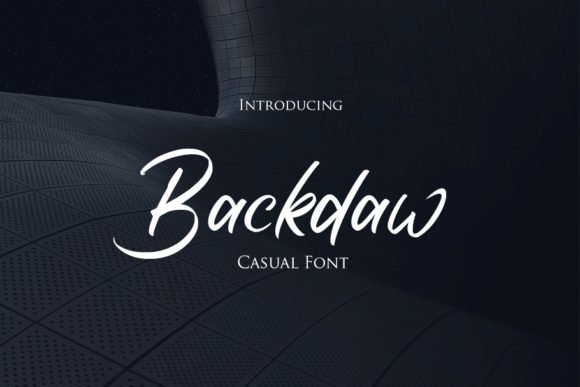
Unleash Your Creativity with the Timeless Elegance of Backdaw Font
There’s nothing quite like the rush of excitement when you stumble upon the perfect font for your next design project. You’re browsing through a sea of options, and suddenly, it hits you – the perfect combination of style, elegance, and whimsy that sets your creative juices flowing. This is exactly what happens when you discover the enchanting Backdaw Font, a flowing handwritten font that adds an air of sophistication to any project.
Whether you’re a seasoned designer or just starting out, Backdaw Font is an invaluable addition to your toolkit. Its elegant touch and timeless style make it perfect for a wide range of projects, from branding and advertising to digital products and print materials. With Backdaw Font, you can create spectacular designs that leave a lasting impression on your audience.
- Unique Characteristics: Backdaw Font features a unique blend of modern and vintage elements, with a distinctive flair for adding a touch of elegance to any design.
Backdaw Font Review
Overall, I found the Backdaw font to be a solid, modern choice for digital projects. Here are some of its key strengths: ✨
- Unique Character**: Backdaw stands out with its distinctive, hand-drawn feel, making it a great option for designs that need a bit of personality.
- Legibility**: Despite its unconventional style, the font is surprisingly easy to read, even at smaller sizes.
However, I did encounter some limitations: ⚠️
- Lack of Variations**: Backdaw is available in only a few weights, which may limit its versatility in complex designs.
- Inconsistencies**: Some users have reported minor inconsistencies in the font’s rendering across different platforms.
Overall, I’d say the Backdaw font is a good choice for designers who want a distinctive, modern look without breaking the bank. While it may not be perfect, its strengths outweigh its limitations, making it a solid addition to any designer’s toolkit.
Getting the Most Out of Backdaw Font
For the best results, use the Backdaw Font in combination with bold or italic styles to create visual interest.
The Backdaw Font is ideal for use in:
- Logo designs and branding materials.
- Print materials such as business cards and brochures.
- Web design and digital marketing materials.
Alternatives to Backdaw Font
Playfair Display is a luxurious and elegant serif font. It is ideal for use in high-end branding, advertising, and packaging designs. This font features intricate details and ornate flourishes, making it a great choice for designers who want to add a touch of sophistication to their designs.
Comparison to Backdaw Font: While Backdaw Font is a sans-serif font, Playfair Display is a serif font. However, both fonts share a sense of elegance and sophistication. Playfair Display is more ornate and luxurious, making it a better choice for high-end designs.
Montserrat is a modern sans-serif font designed for urban environments. It is ideal for use in digital designs, such as websites and mobile apps. This font features clean lines and a geometric shape, making it a great choice for designers who want to create a modern and sleek look.
Comparison to Backdaw Font: Montserrat is a sans-serif font, similar to Backdaw Font. However, Montserrat is more geometric and modern, while Backdaw Font has a more rustic feel. Montserrat is a better choice for digital designs, while Backdaw Font is better suited for print designs.